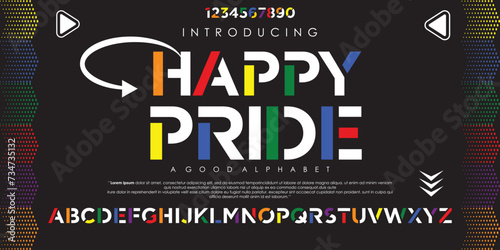
Modern Happy Pride Abstract digital alphabet font. Minimal technology typography, Creative urban sports fashion futuristic font, and numbers. vector illustration EPS 10